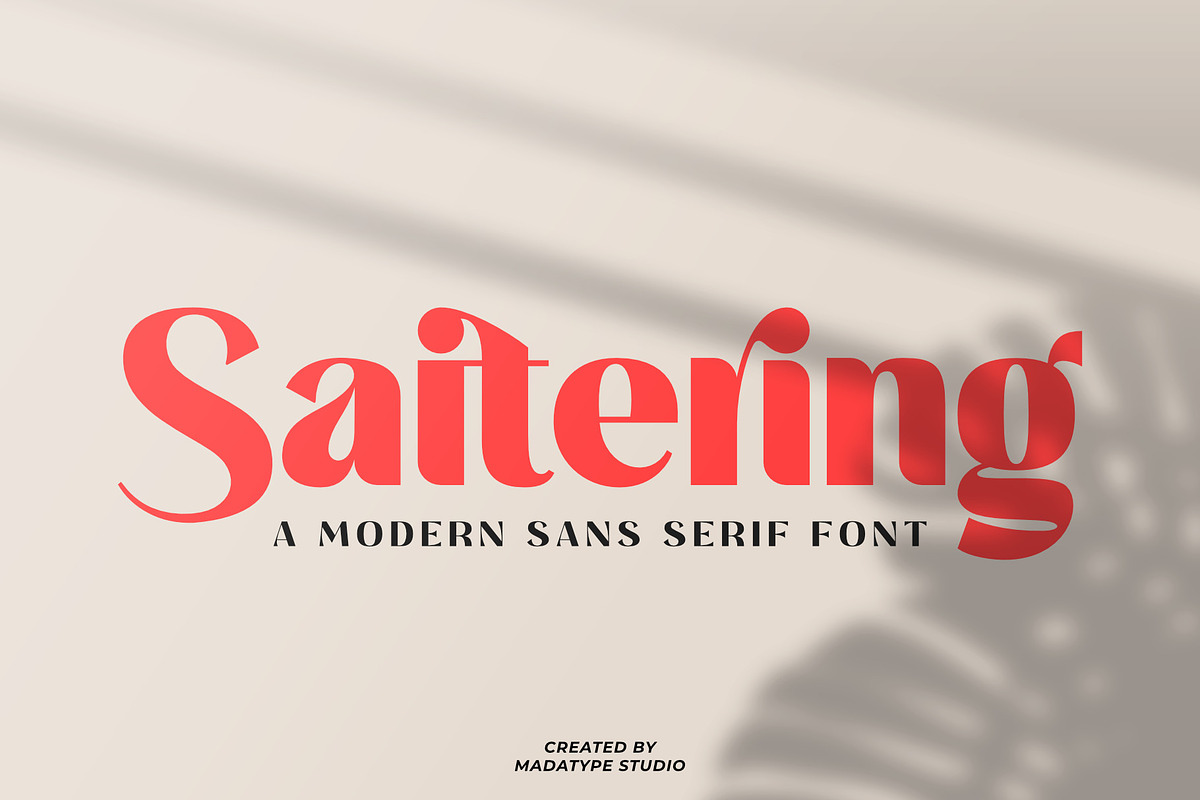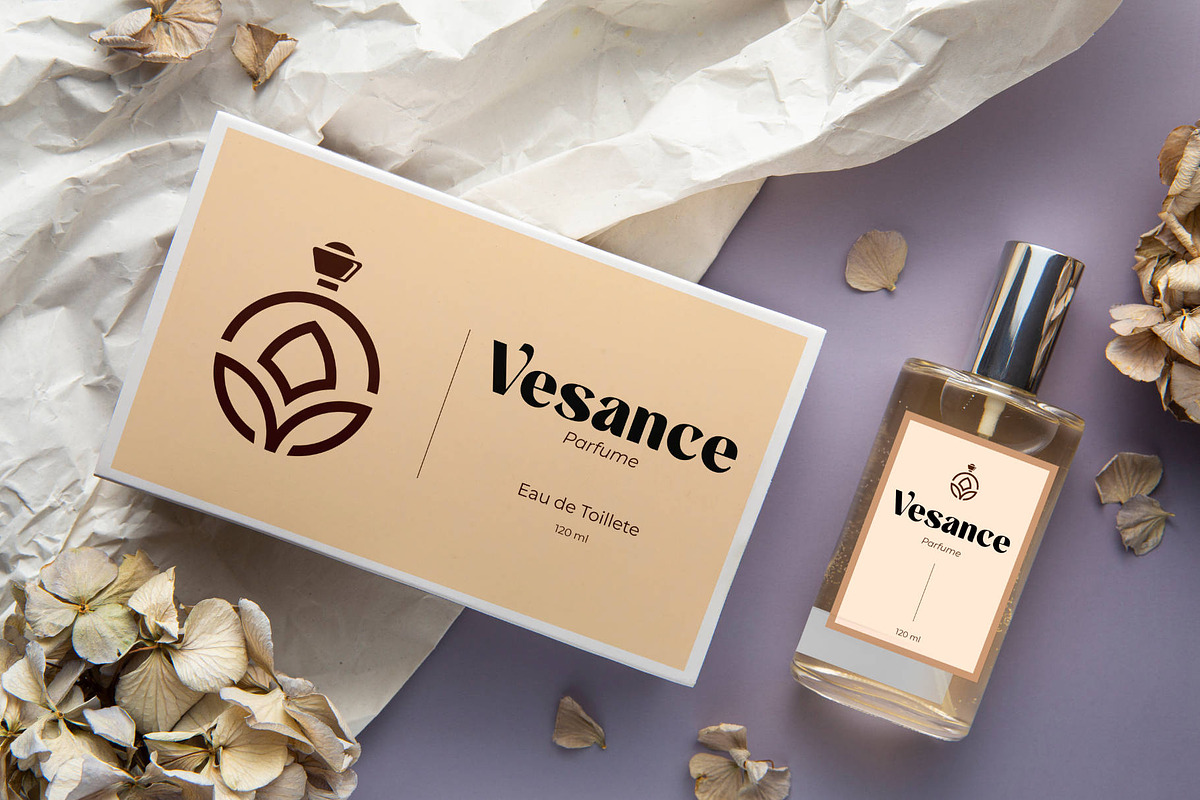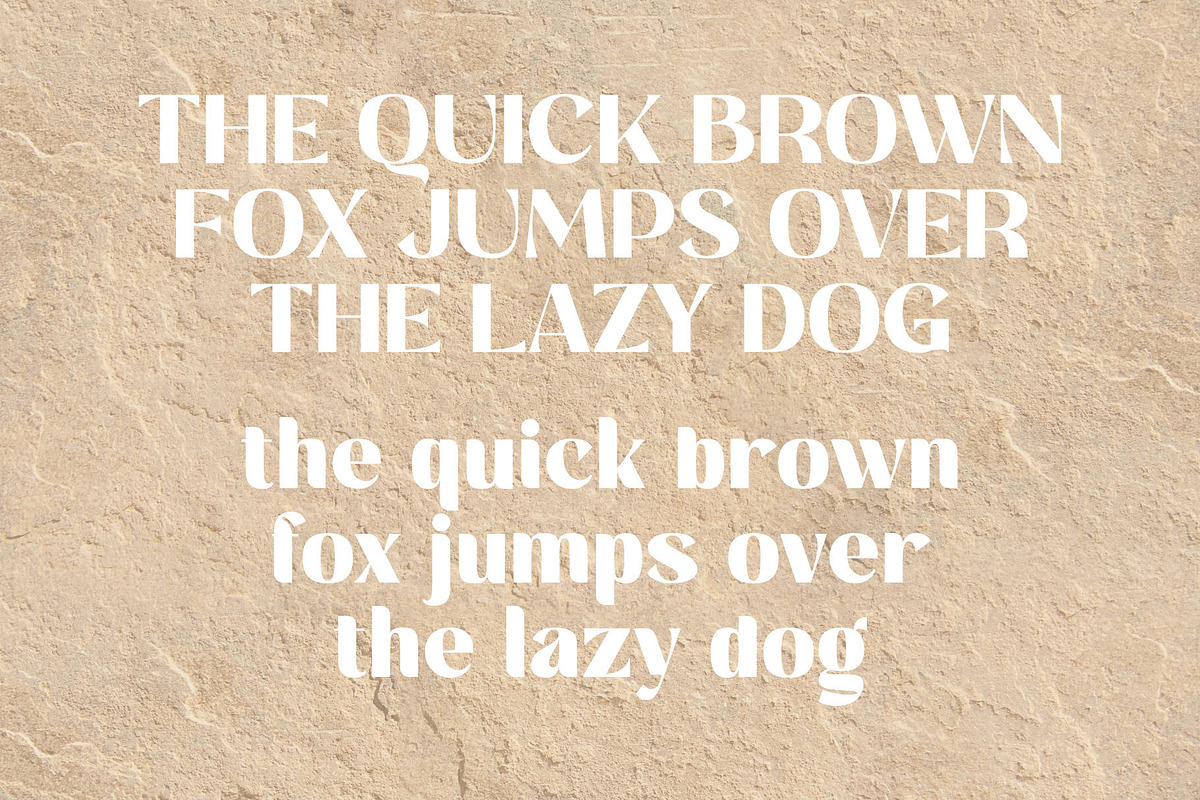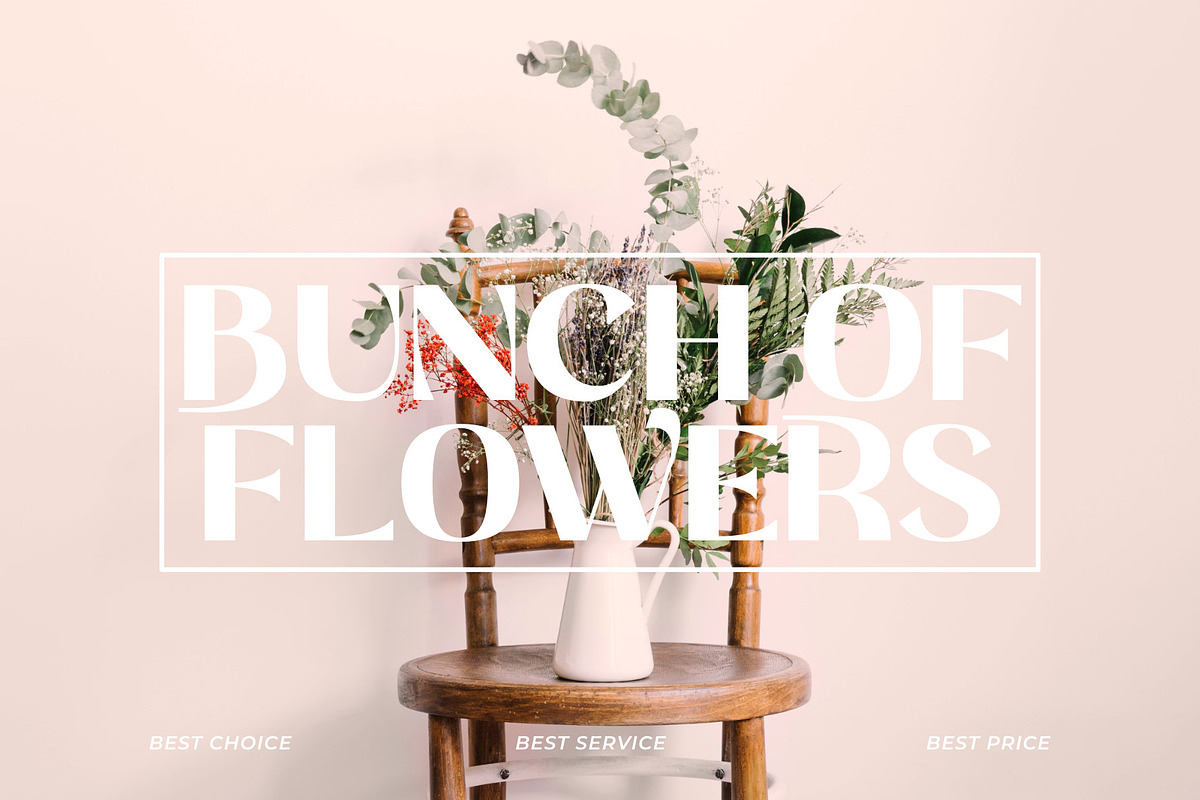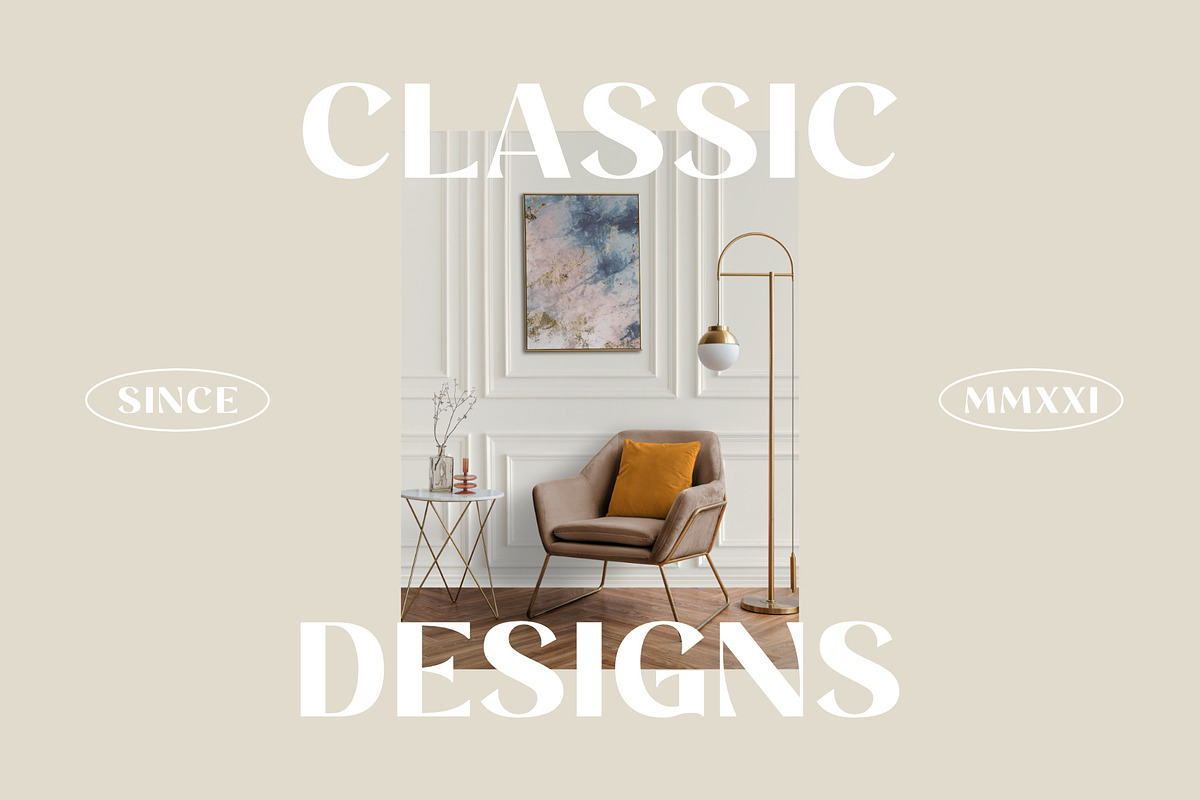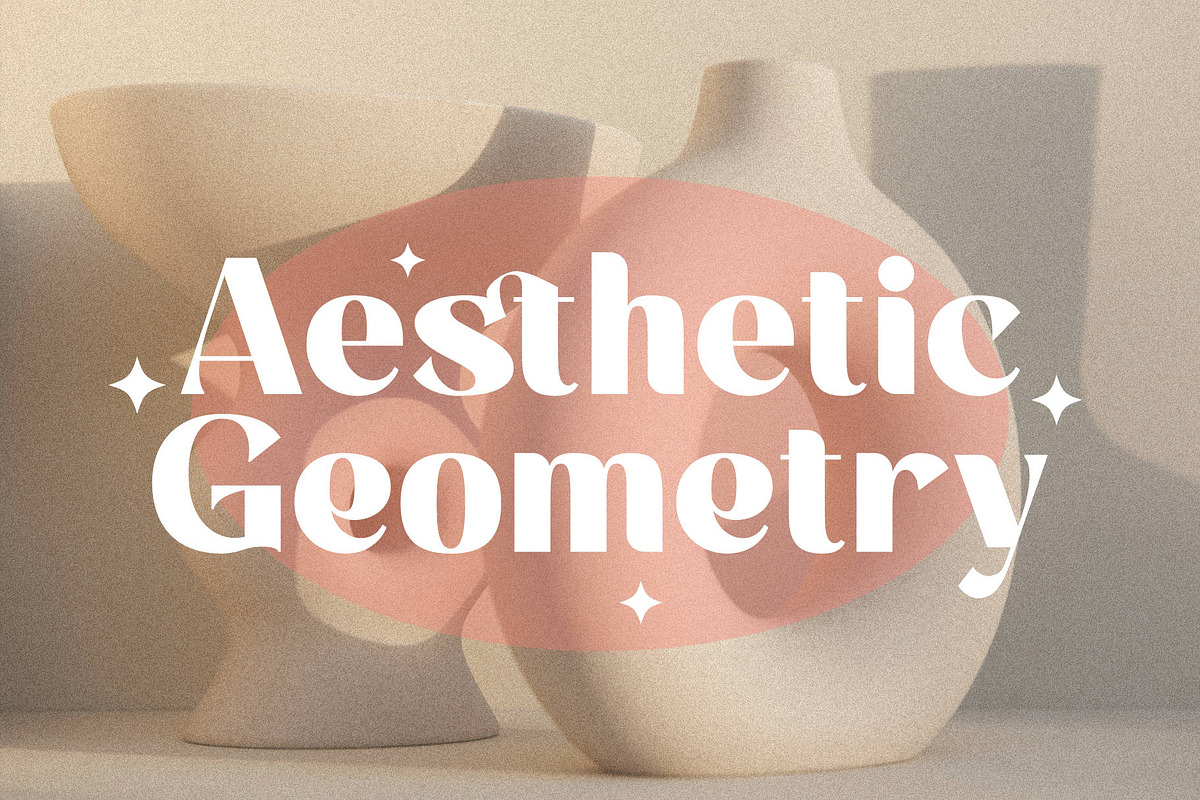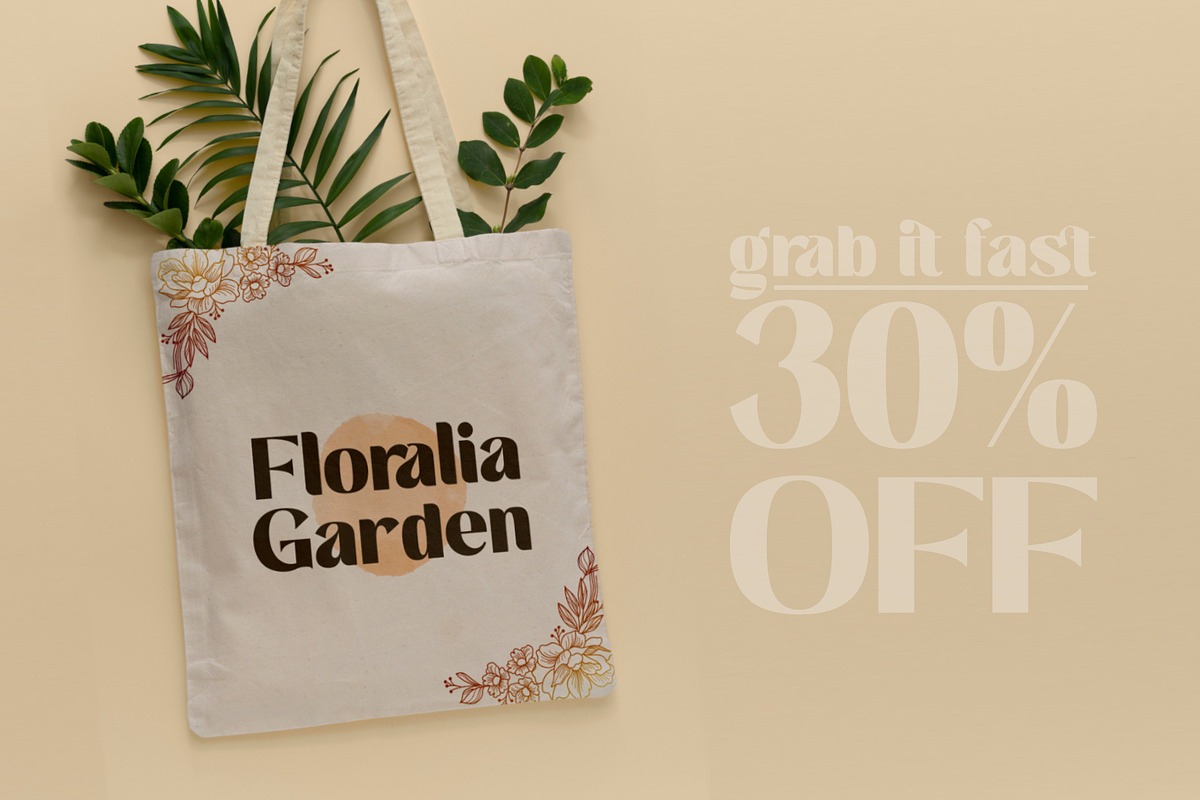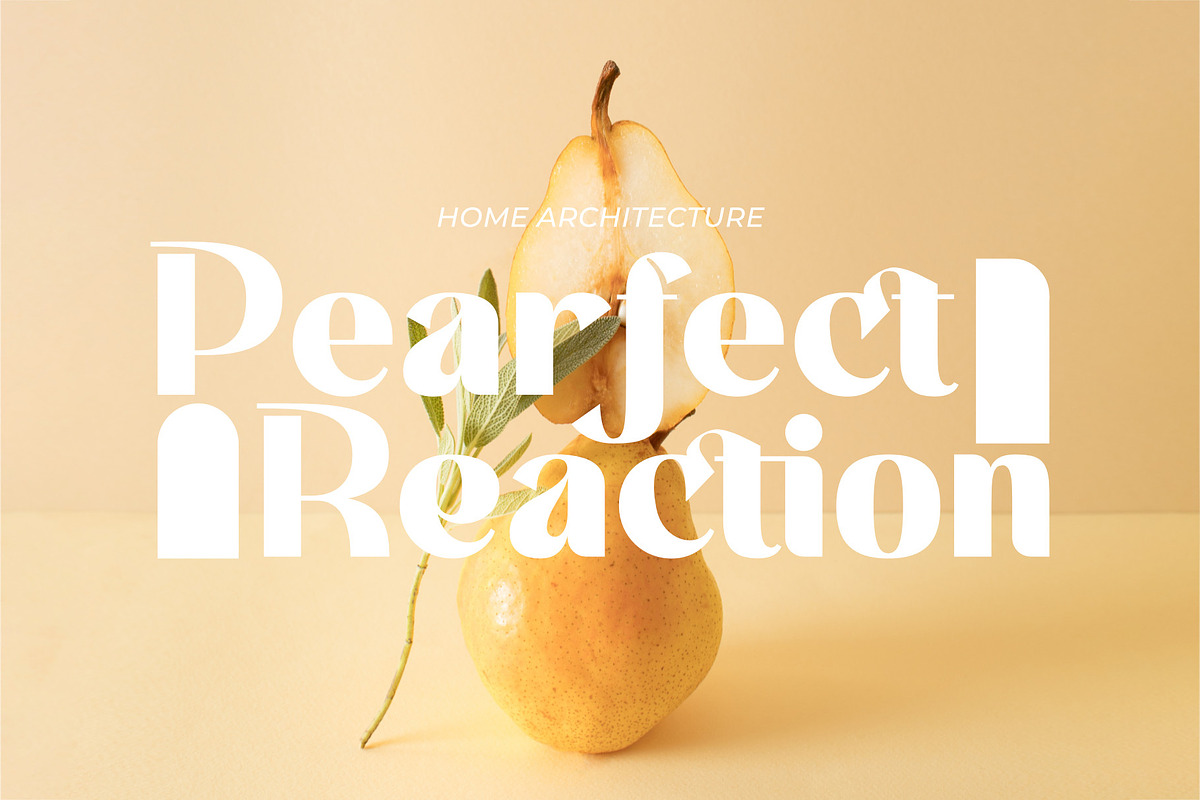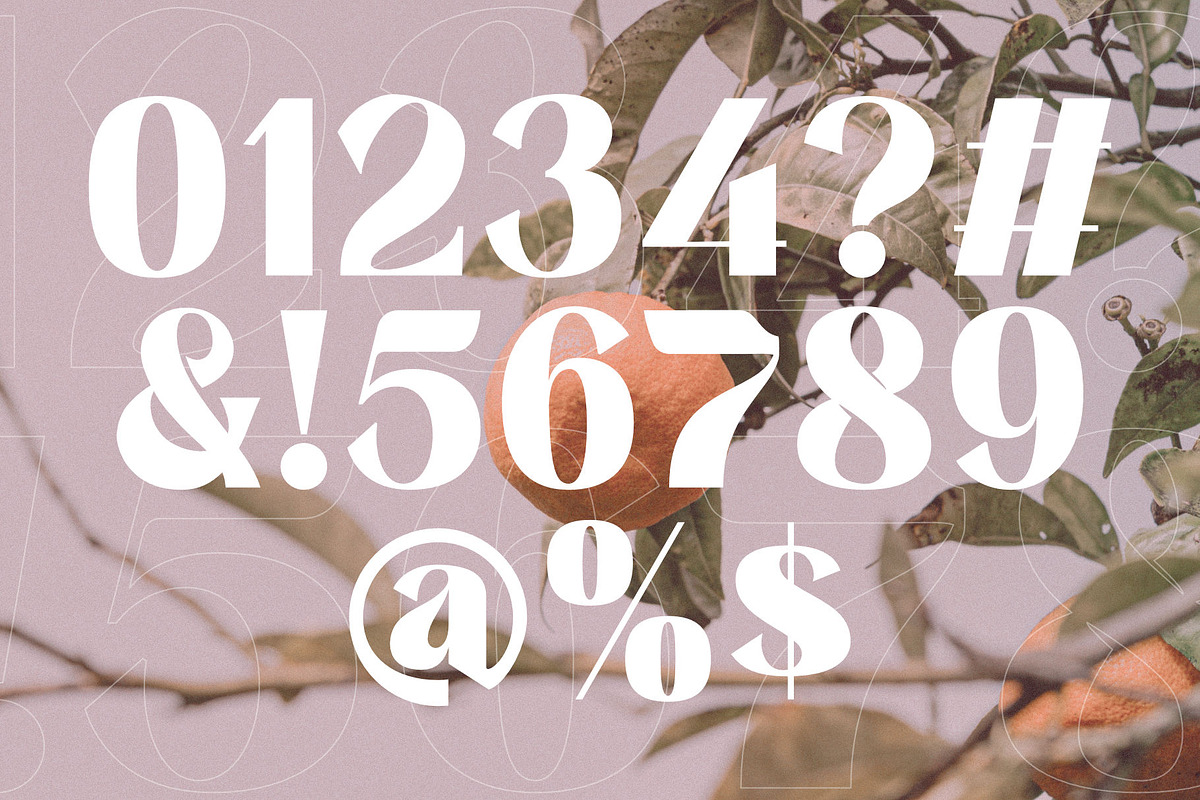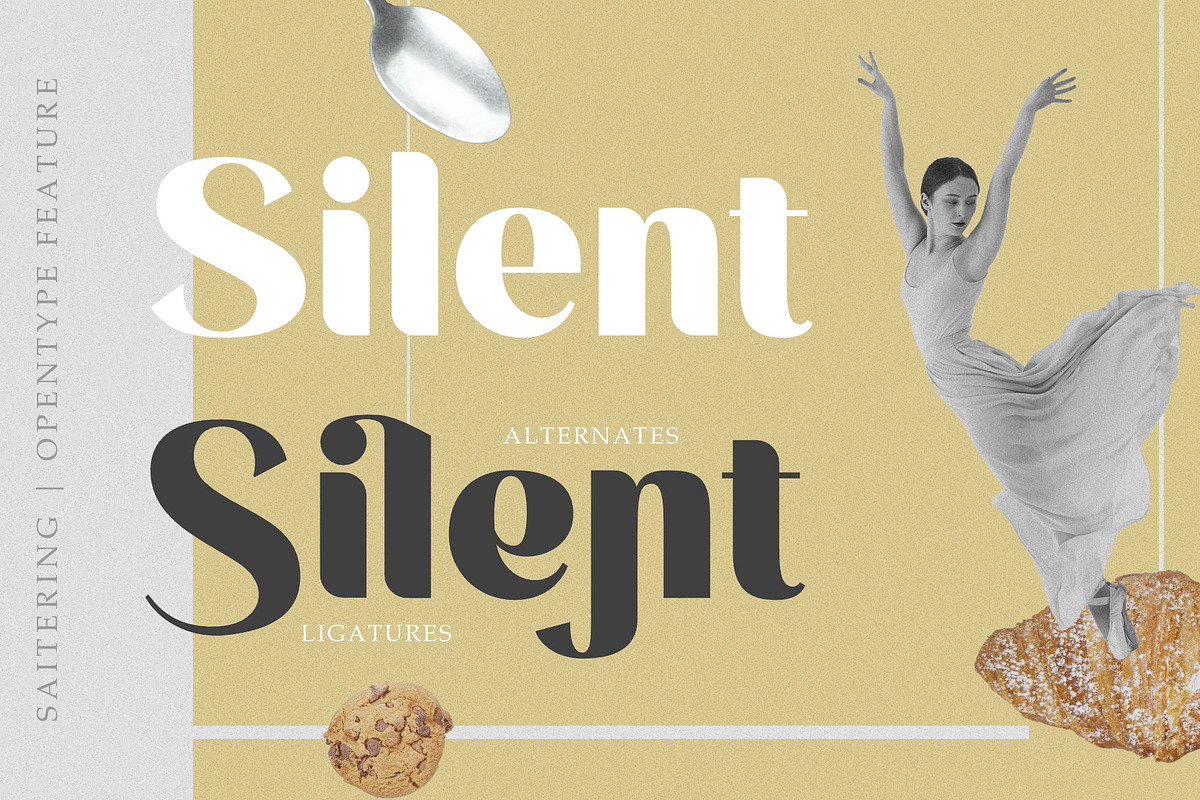
Saitering | A Modern Sans Serif
Saitering is a contemporary sans serif font that effortlessly blends elegance with strength. Its bold and thick shapes make a powerful statement, while its refined lines maintain an air of sophistication. Whether you’re creating a brand identity, designing a logotype, or working on various projects, Saitering offers versatility and impact. Saitering doesn’t settle for the ordinary. It provides a range of alternates and ligatures, allowing designers to customize their typography and create unique compositions.
Whether you need a subtle variation or a standout detail, Saitering delivers. In summary, Saitering is more than a font—it’s a design companion that elevates your projects. With its elegant yet robust character, this sans serif typeface is ready to leave a lasting impression. Choose Saitering for a brand that speaks volumes with every letter.
Ligatures & Alternates